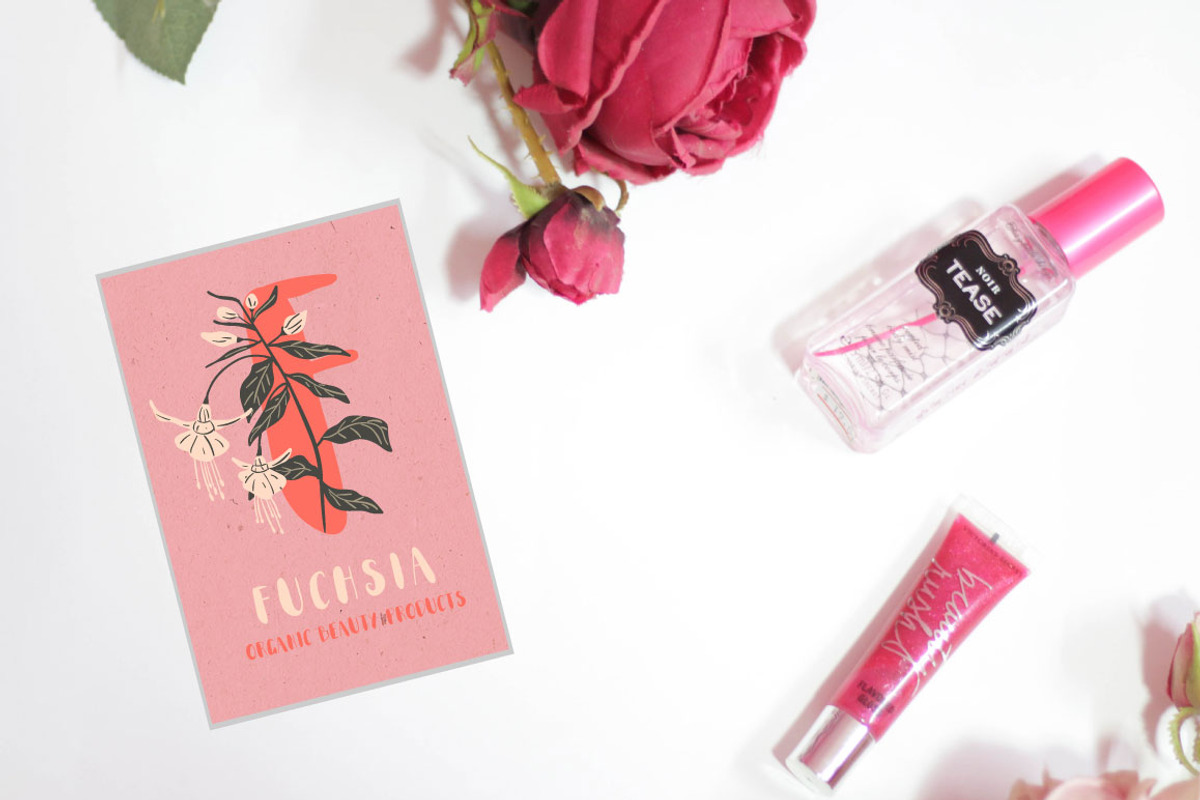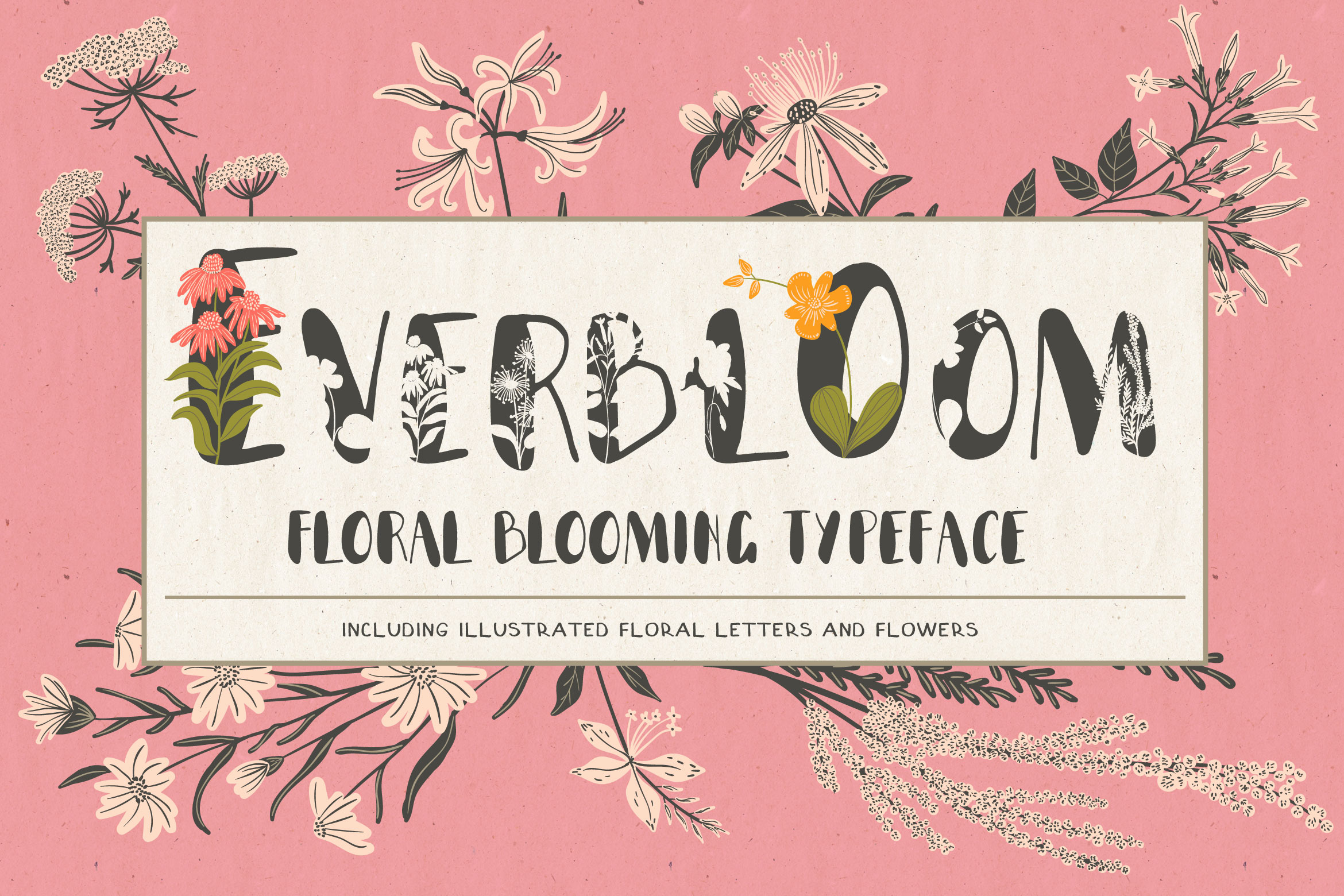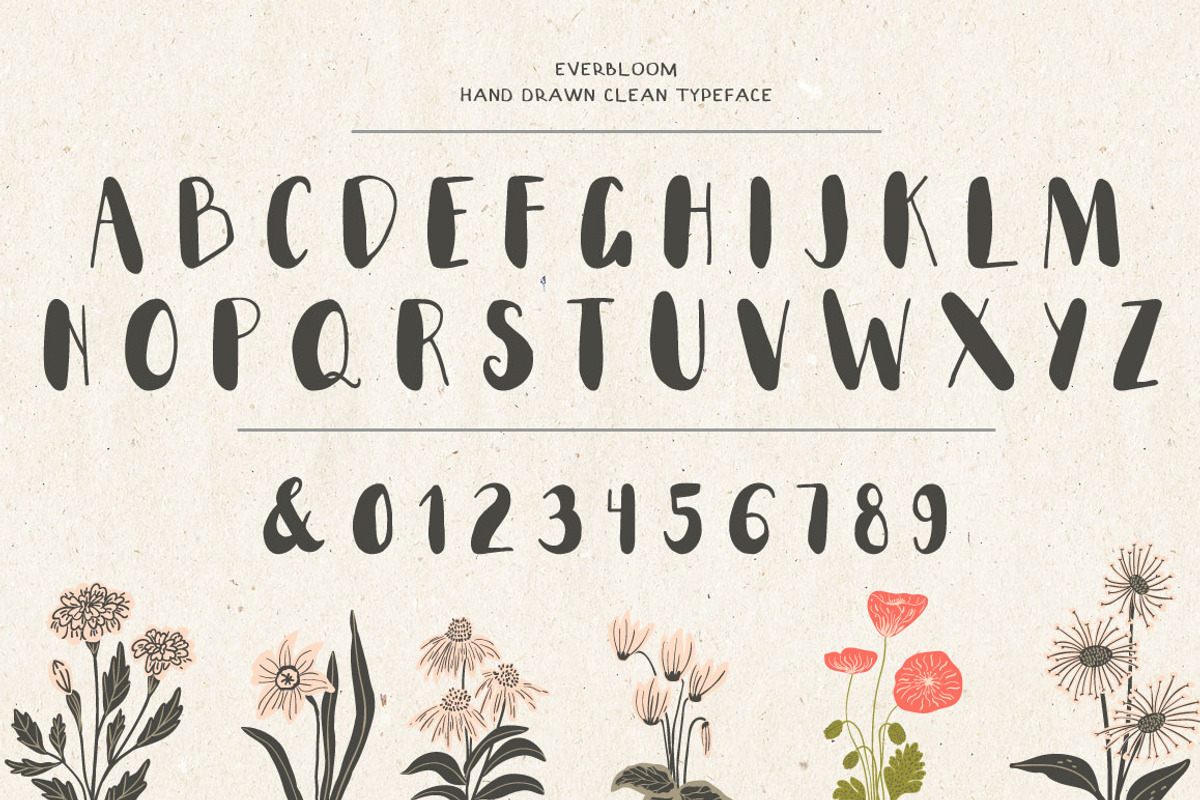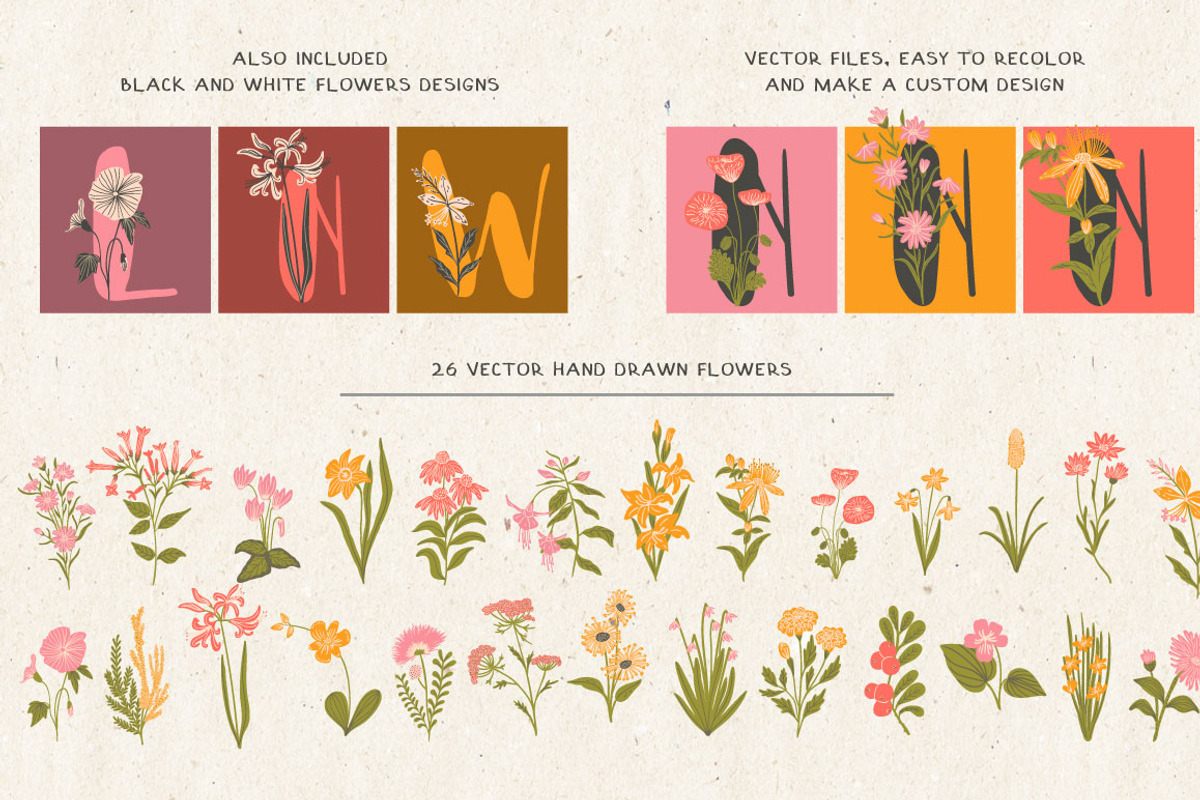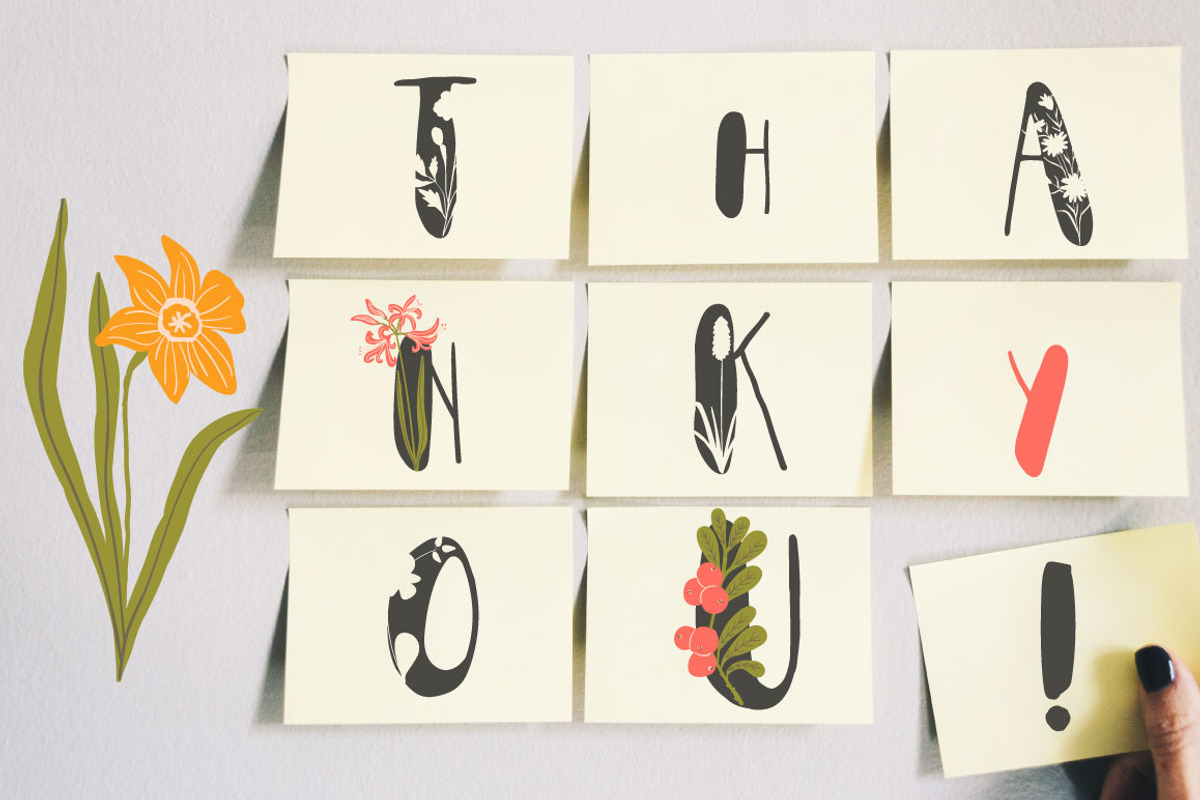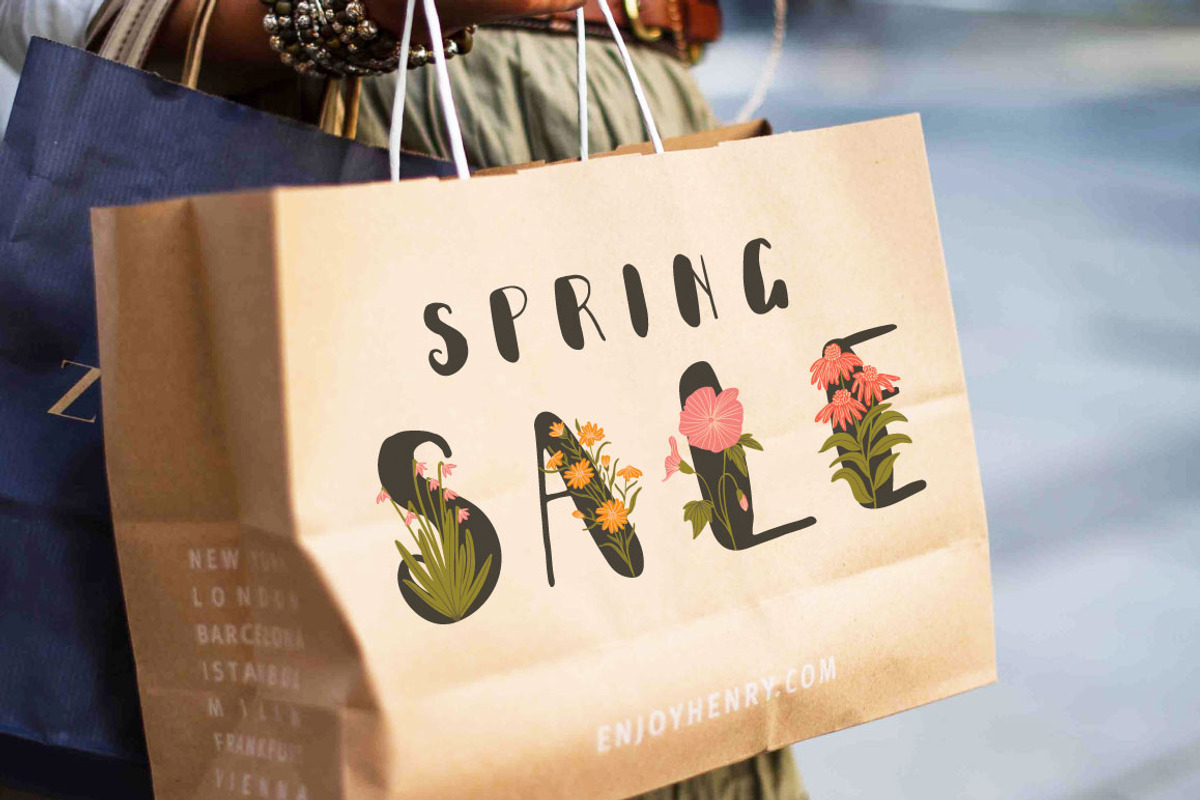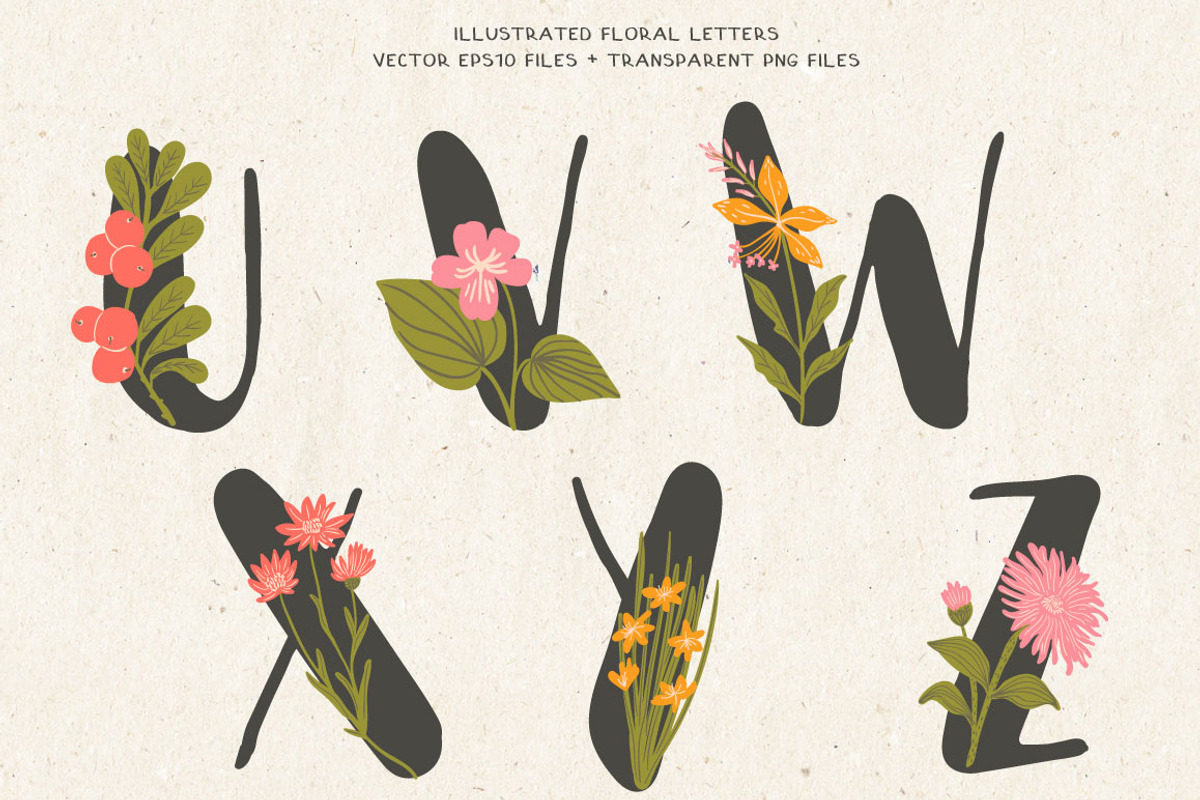
Everbloom - floral typeface
Everbloom
Decorative floral typeface and floral letters
Enhance your designs with this floral typeface and botanical letters designs.
The typeface has 2 versions - decorative patterned letters version and clean hand drawn version.
Also there are floral letters designs included’ with black and white and colored versions.
With this collection it will be easy to create a fresh botanical elegant designs, perfect for wedding stationery, logo designs and beautiful branding.